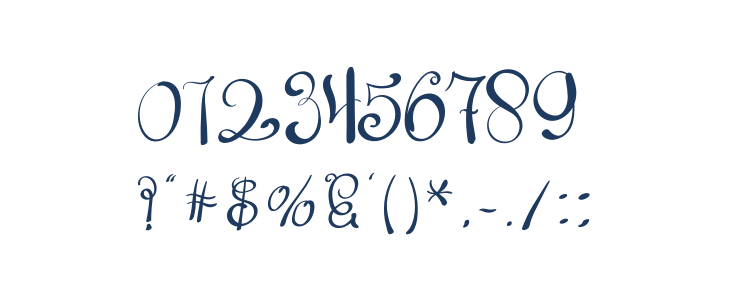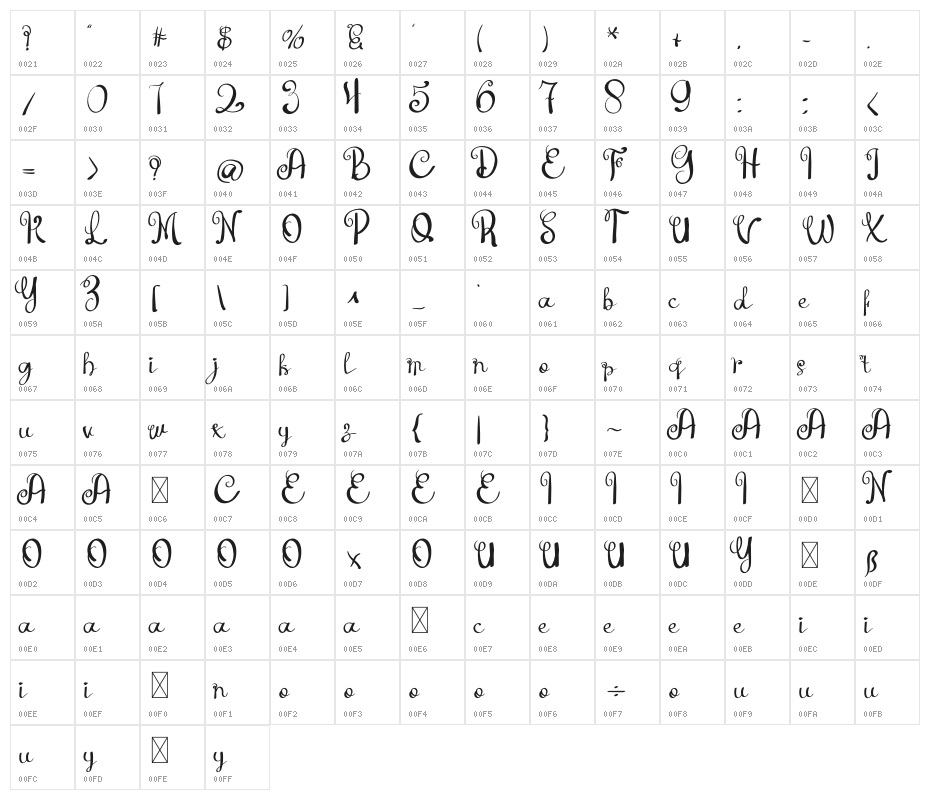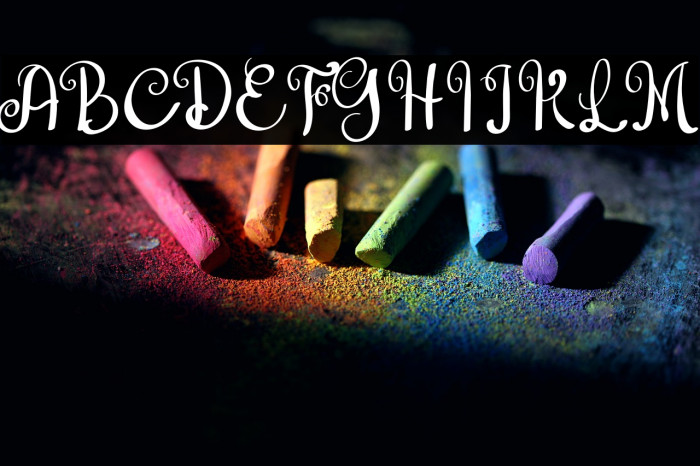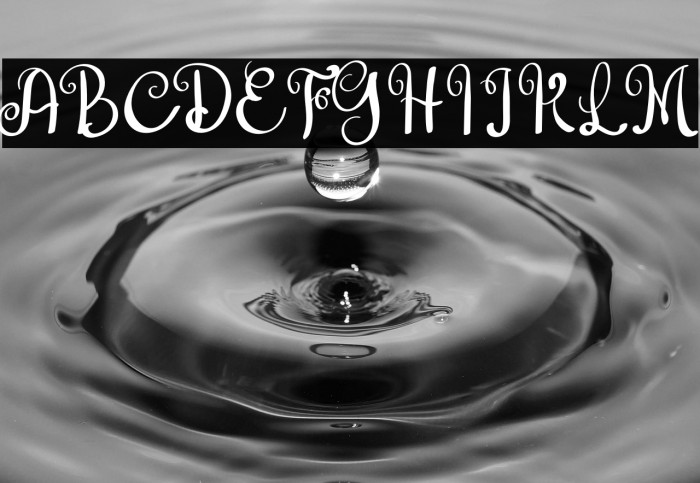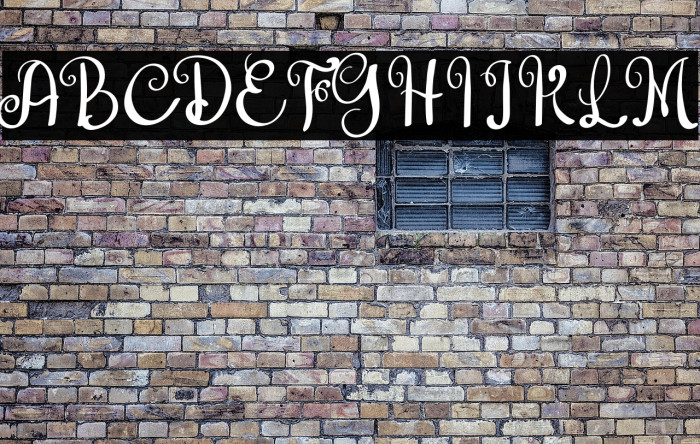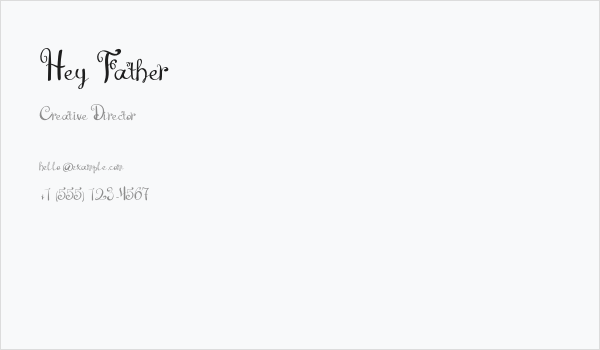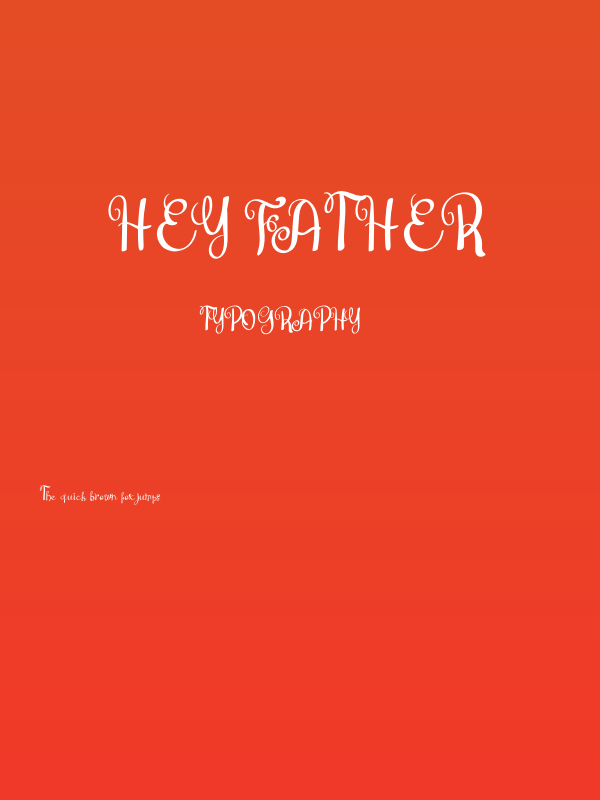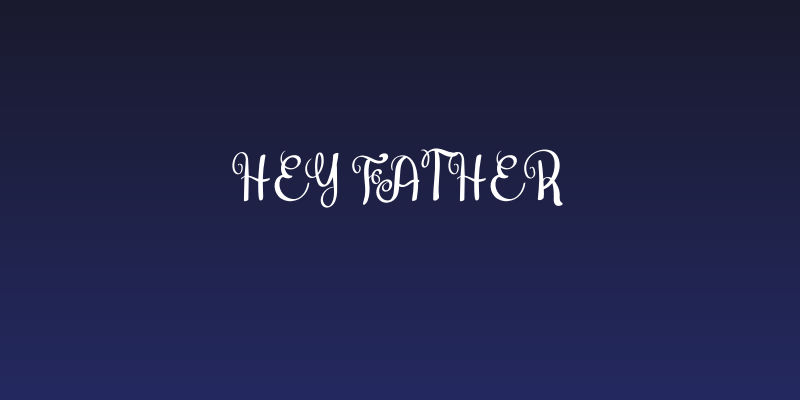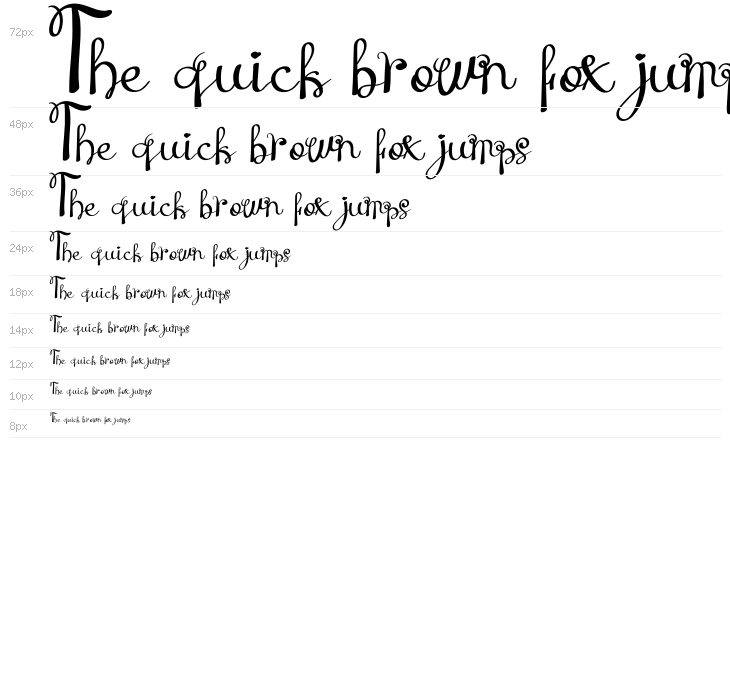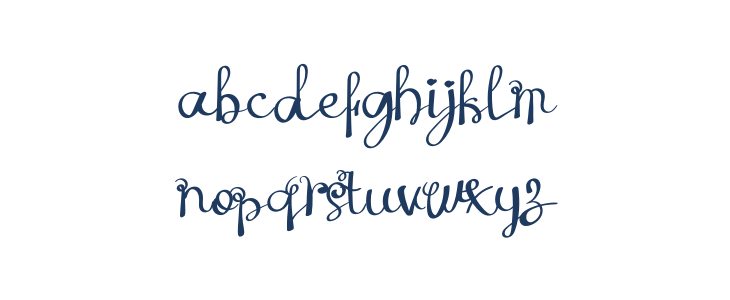
Hey Father Font
Hey Father Description
This font features an elegant and whimsical script style with a playful and artistic flair. The characters are intricately designed with flourishes and loops, giving it a unique and decorative appearance. The uppercase letters are bold and expressive, while the lowercase letters maintain a consistent flow with a slightly more subdued style. Numbers and special characters are crafted with the same attention to detail, ensuring a cohesive look throughout. The font's overall aesthetic is both sophisticated and approachable, making it suitable for a variety of creative projects.
Use CaseLogos, Invitations, Artistic projects
Proposed ProjectsIdeal for wedding invitations, greeting cards, branding, and artistic projects that require a touch of elegance and creativity.